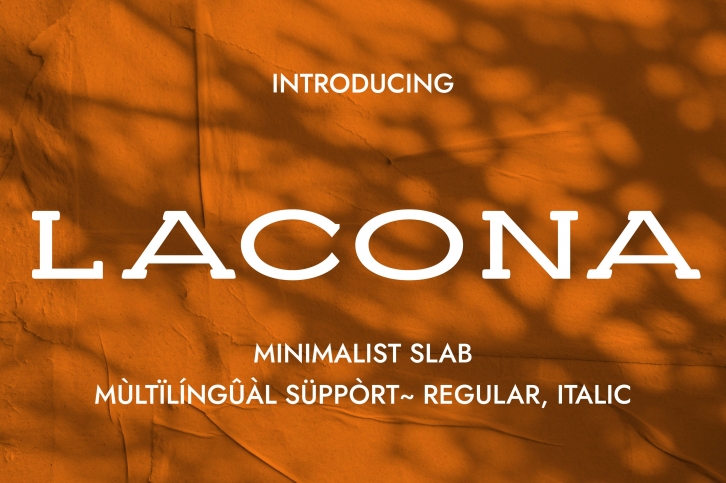
Lacona is a wide, elegant, and minimalist slab serif font perfect for labels for perfumes, cosmetics, magazine covers, posters, manifests, flyers, social posts, and fashion. Use it in your creations, and you will notice how fast it will become one of your favorite fonts.